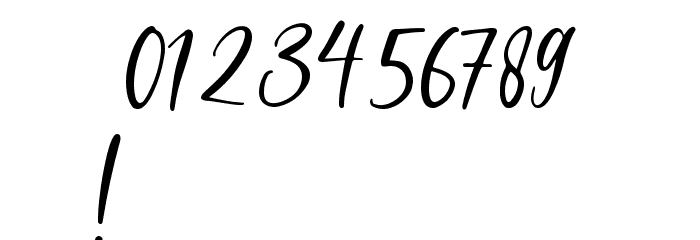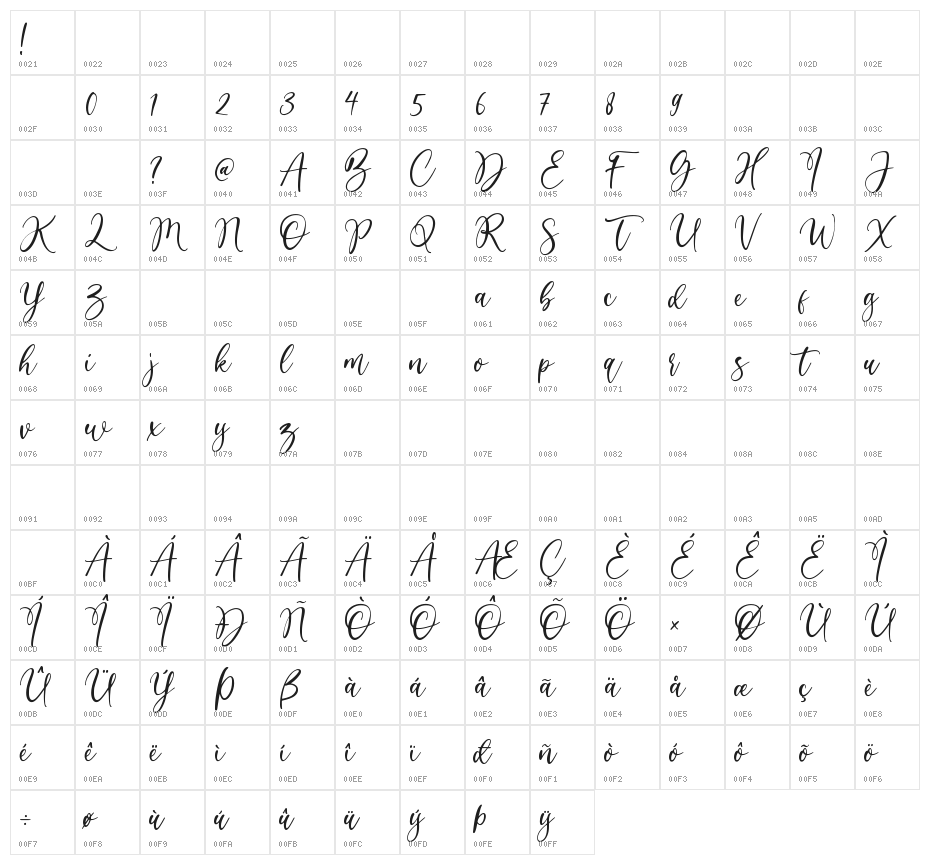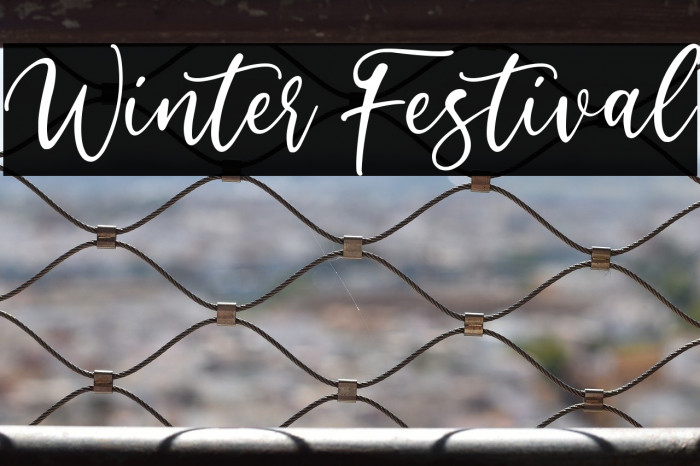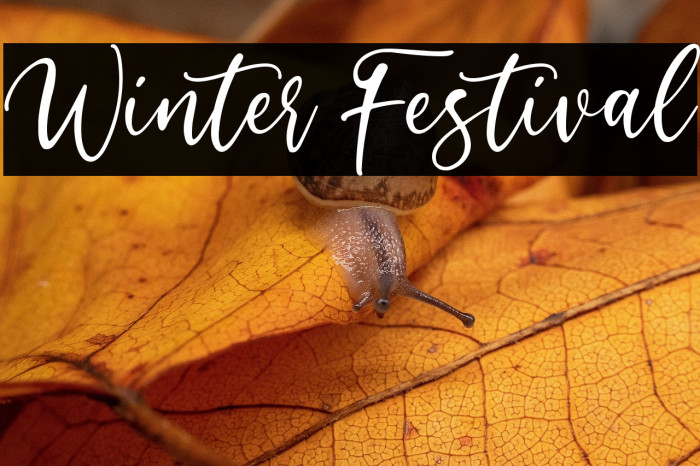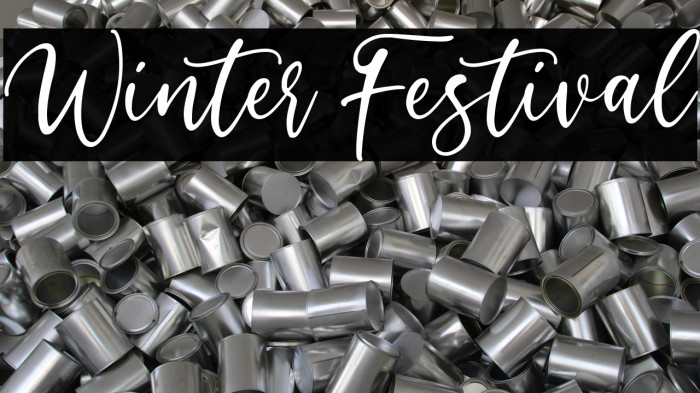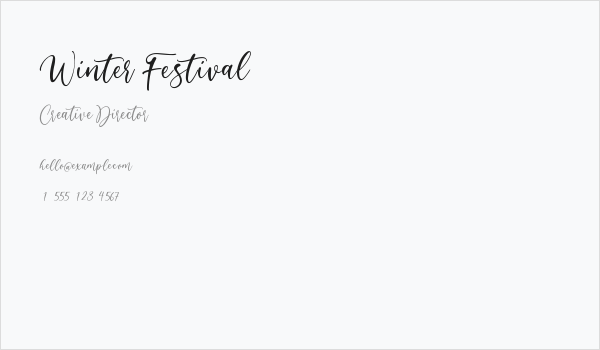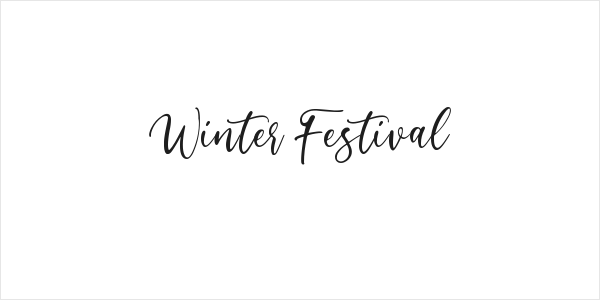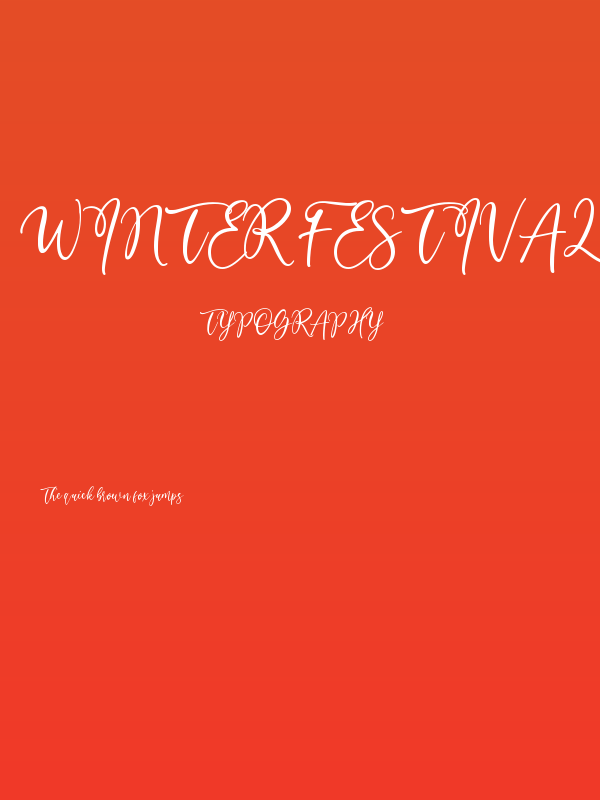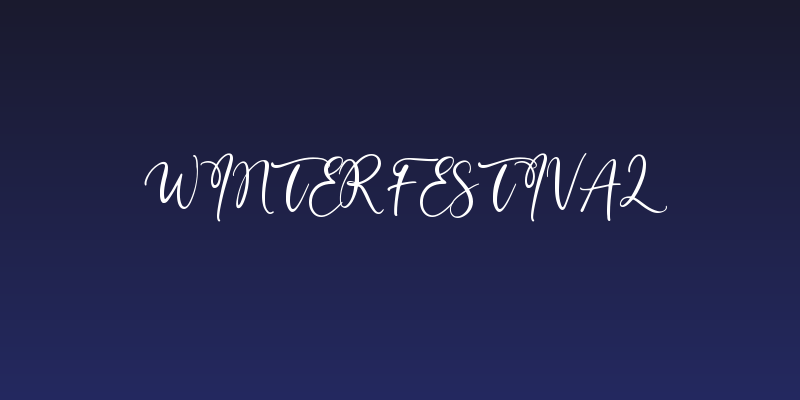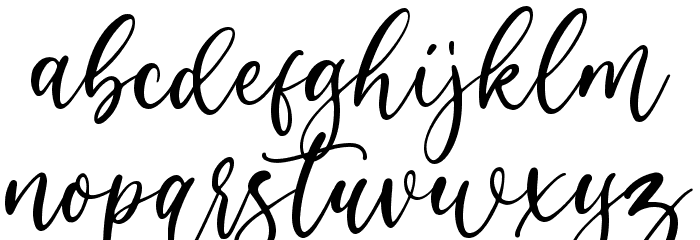
Winter Festival Font
Winter Festival Description
This font exudes a lively and elegant script style, characterized by its flowing, cursive letterforms. The uppercase letters are gracefully elongated, with sweeping curves and loops that give a sense of movement and fluidity. The lowercase letters maintain a consistent style, with rounded forms and a slight slant, enhancing the handwritten feel. The numerals are distinct yet harmonious with the overall script style, featuring smooth curves and a balanced weight. Special characters are thoughtfully integrated, maintaining the font's cohesive aesthetic. This font's design is both sophisticated and approachable, making it suitable for a variety of creative applications.
| Proposed Projects | Ideal for wedding invitations, greeting cards, branding, and social media graphics. |